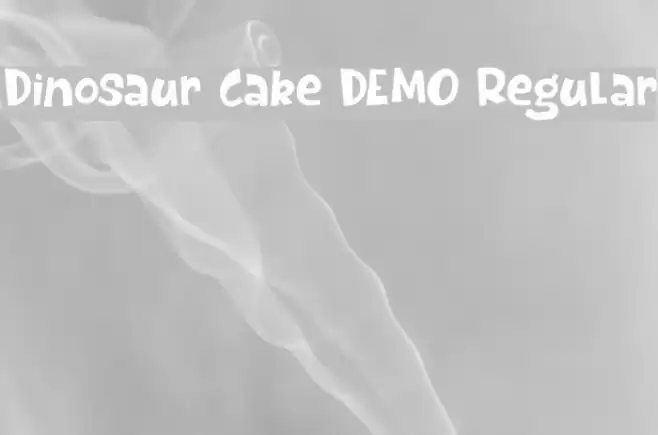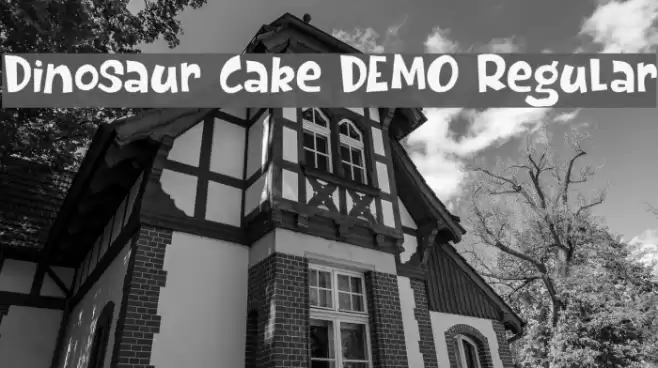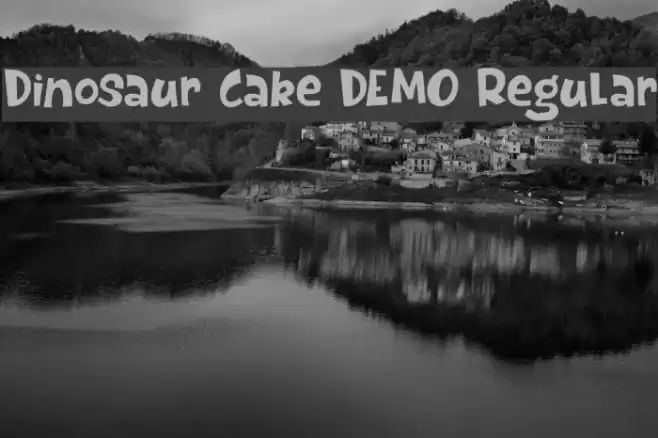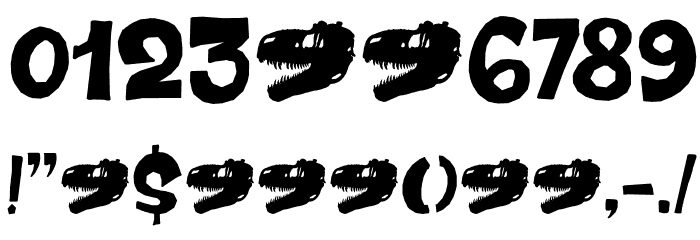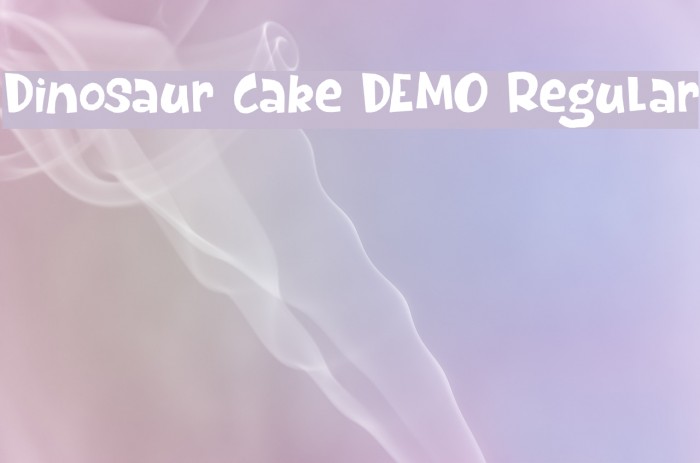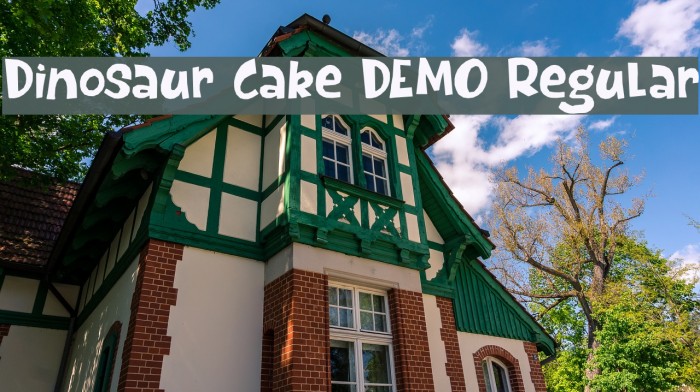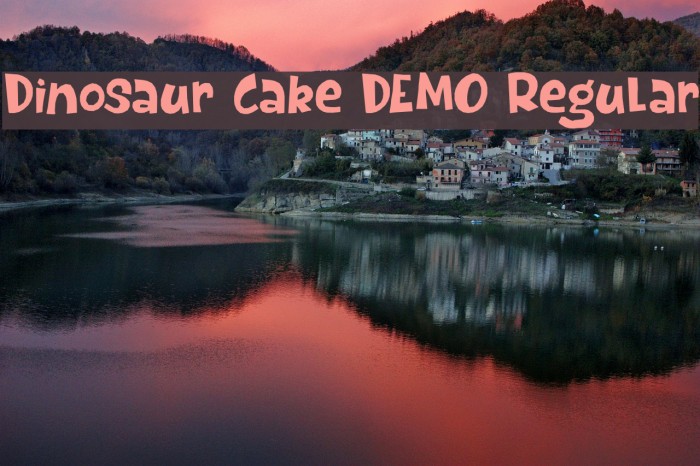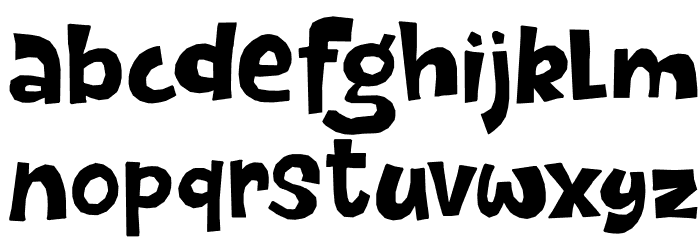
Dinosaur Cake DEMO Regular Font
Dinosaur Cake DEMO Regular Description
This playful and bold font features a whimsical design with a prehistoric theme. The characters are crafted with uneven, jagged edges reminiscent of dinosaur teeth, giving it a fun and dynamic appearance. The uppercase and lowercase letters maintain a consistent style, with exaggerated curves and angles that add to its quirky charm. Numbers and special characters are equally distinctive, incorporating dinosaur motifs that enhance the overall theme. This font is perfect for projects that require a touch of creativity and imagination, appealing to both children and adults.
A playful, dinosaur-themed font with bold, jagged characters from Uncategorized fonts.
- Proposed Projects: Ideal for children's books, educational materials, themed party invitations, and playful branding.